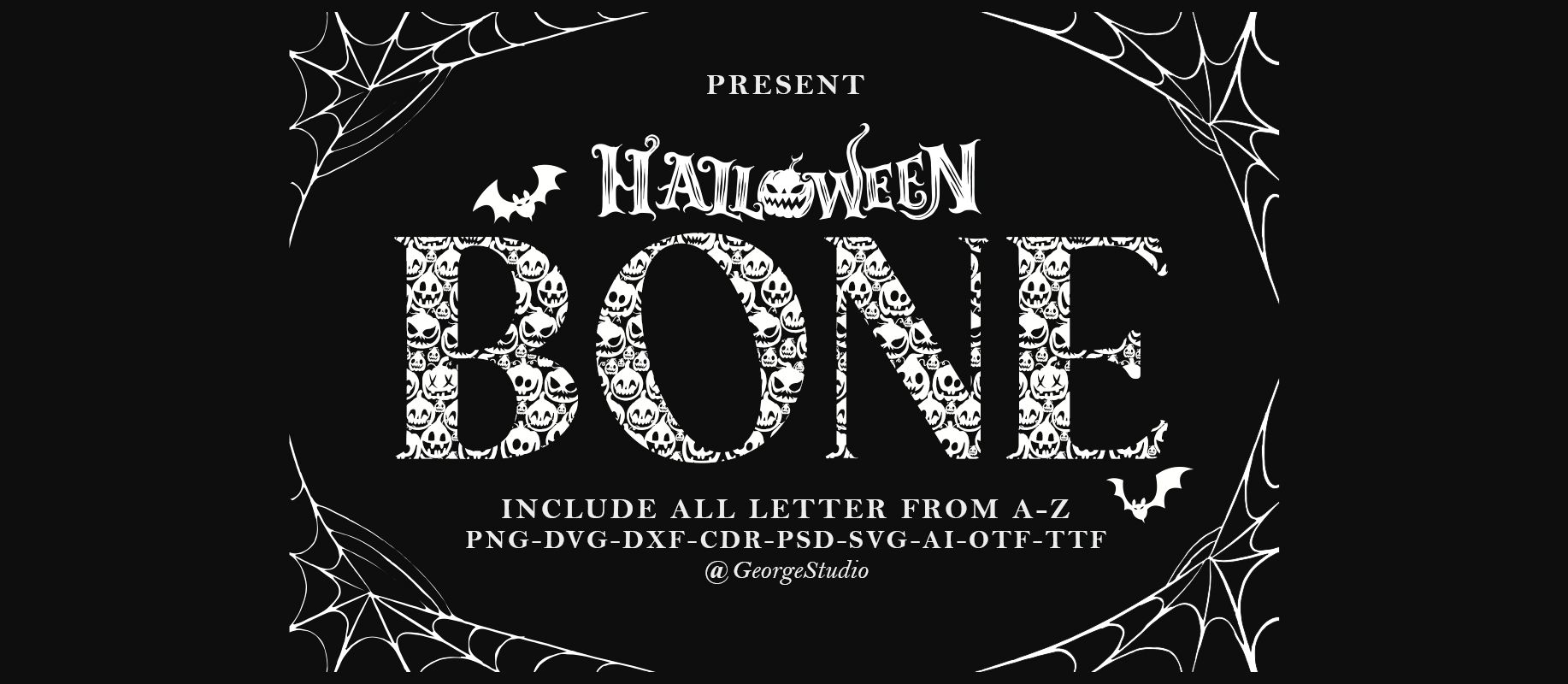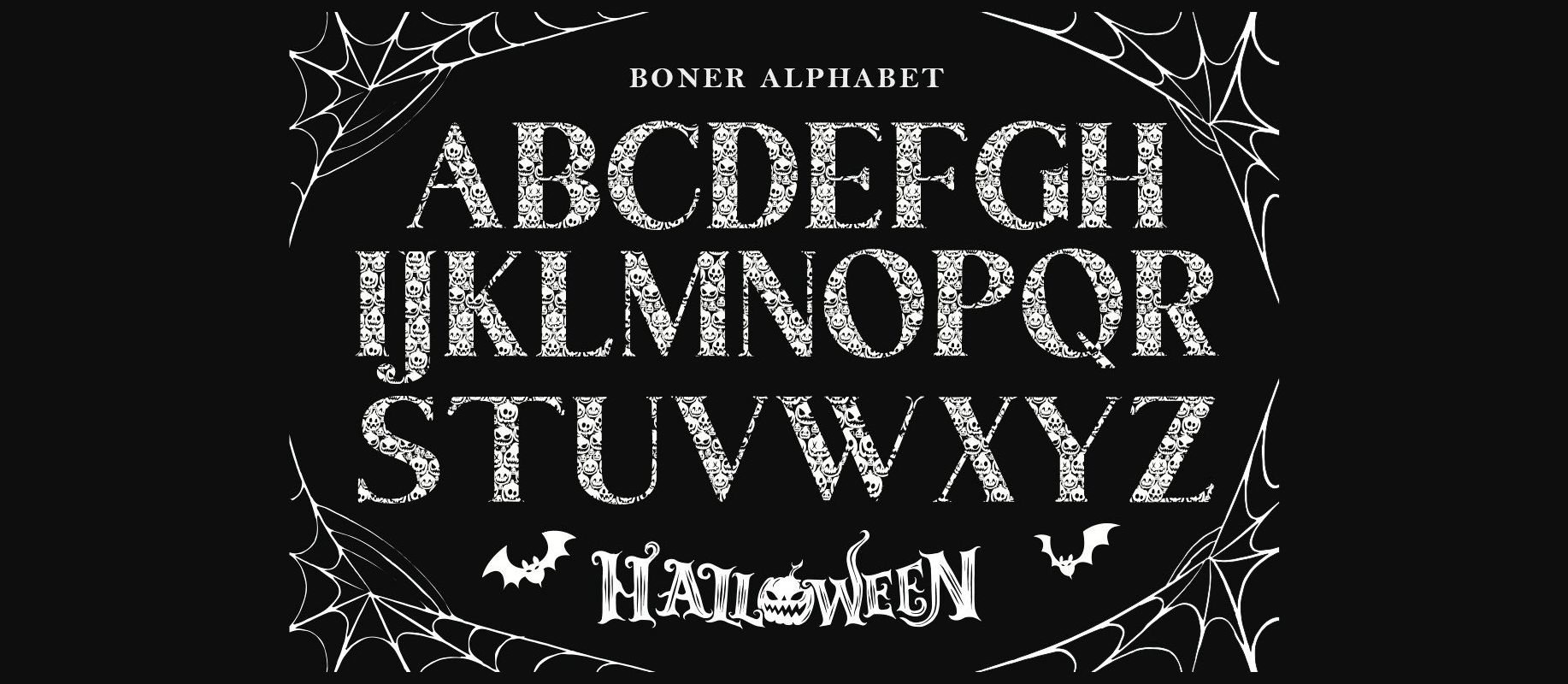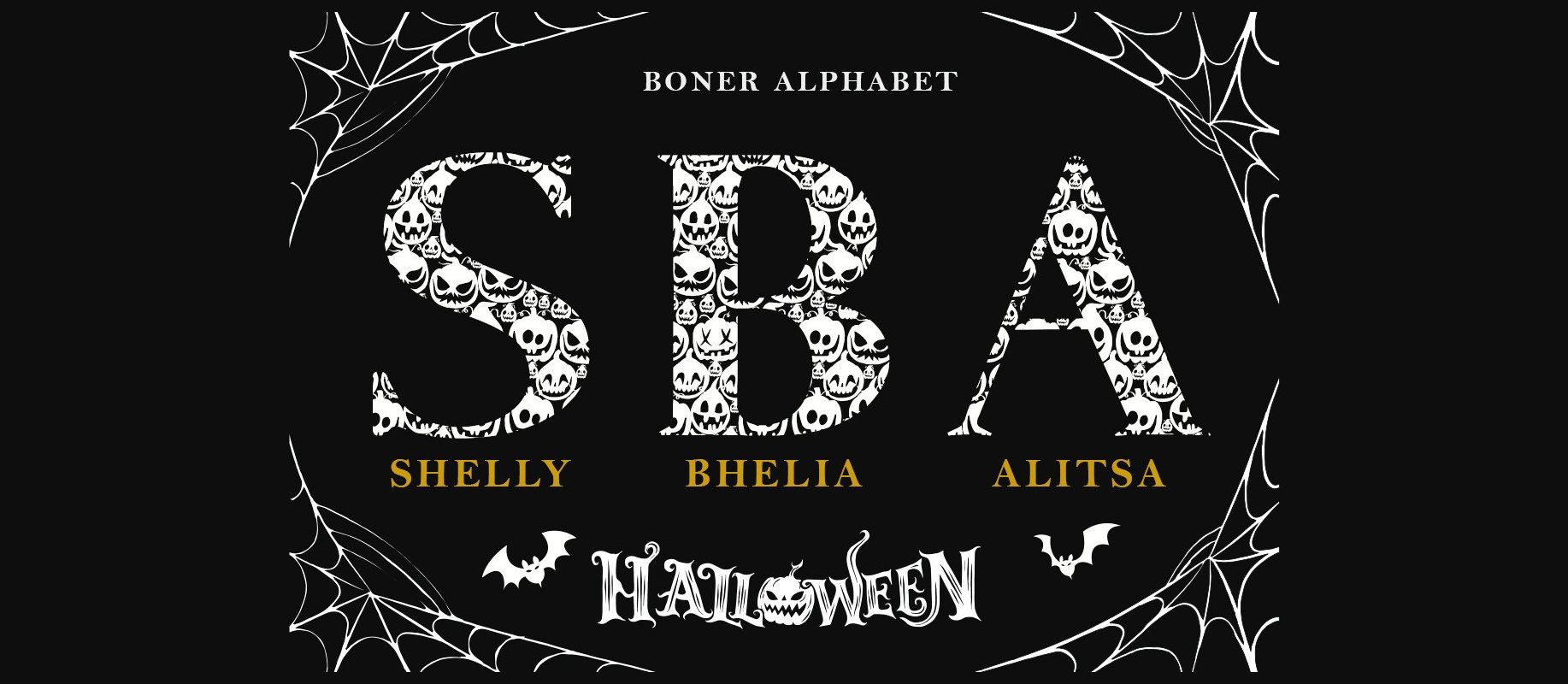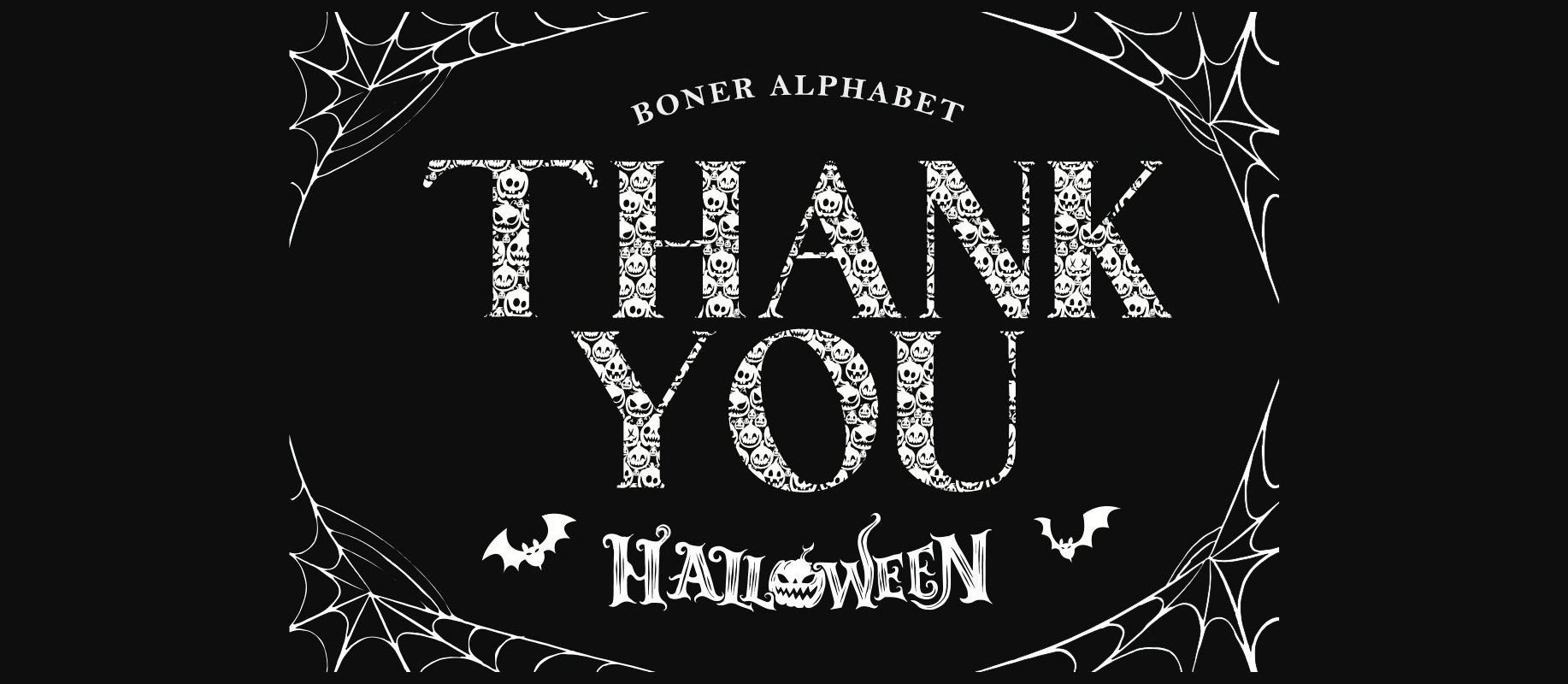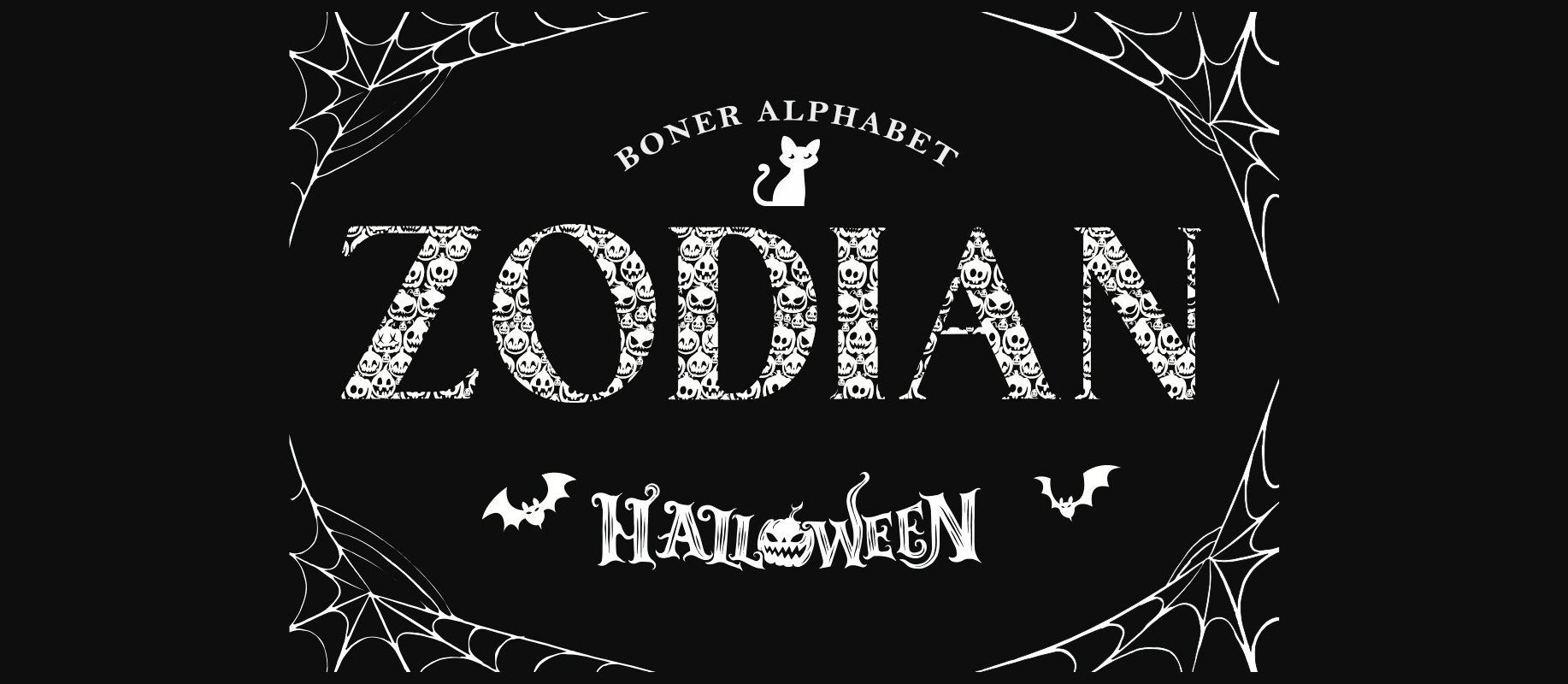
Bone is a spooky monogram decorative font. Masterfully designed to become a true favorite, this font has the potential to bring each of your creative ideas to the highest level!